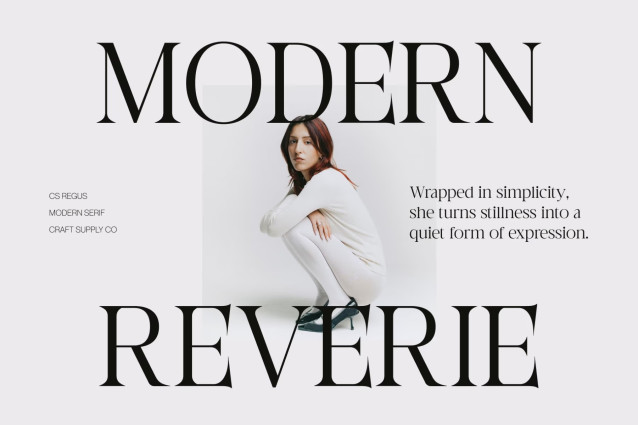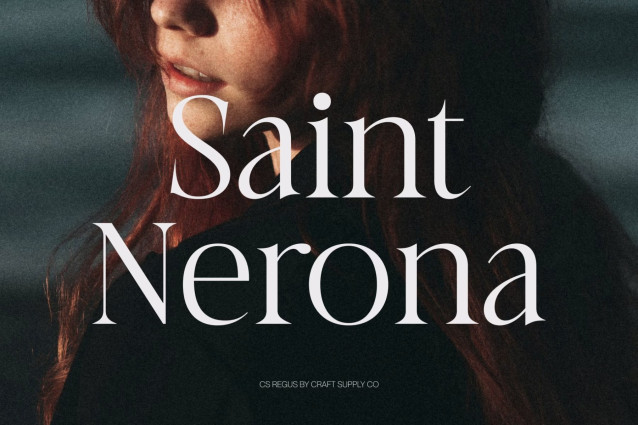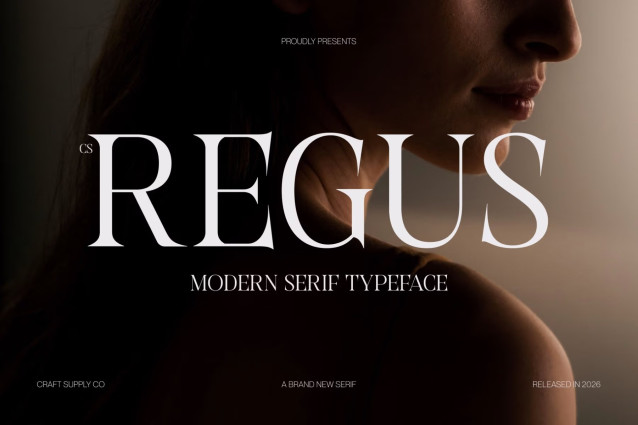
CS Regus – Modern Serif Font
CS Regus – Modern Serif Font: Where Contemporary Elegance Meets Timeless Sophistication
Slim Proportions with Graceful Long Serifs
This is a modern serif font featuring a slim, clean, and contemporary structure enhanced by graceful long serifs. Its refined proportions and delicate details create an elegant, stylish, and highly polished. The slender letterforms contribute to a sense of lightness and luxury, making the font ideal for premium visual communication.
Clean Contemporary Design with Timeless Appeal
This font achieves a perfect balance between tradition and innovation. Its clean construction ensures clarity and versatility, while the elongated serifs add character and distinction. The result is a typeface that feels contemporary yet enduring, suitable for projects that demand both professionalism and beauty.